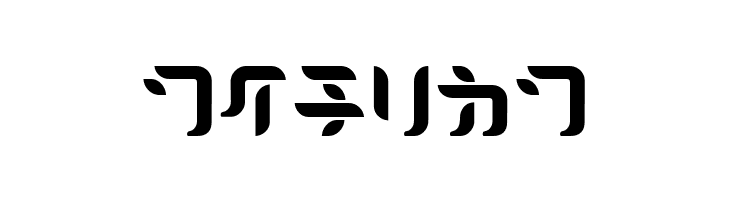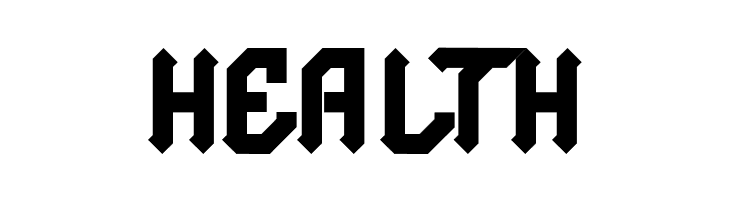
Ninja Naruto Font
A bold, brush-style font with a dynamic and hand-drawn appearance.
Ultras Liberi Font
A bold, angular font with a modern and geometric design.
Darkstar Font
A bold, angular font with a futuristic and edgy design.
Venus Rising Font
A futuristic, geometric font with clean lines and angular shapes.
Willamette Rising Font
A bold, decorative font with integrated silhouette designs in each character.
FakeReceipt Font
A dot matrix-inspired font with characters formed by small, evenly spaced dots.
VenusRisingRg-Regular Font
A modern, geometric font with a futuristic and sleek design.
Phoenix Rising Font
A bold, decorative font with a striped pattern and three-dimensional outline.
Riscada Doodle Font
A playful, hand-drawn font with a sketch-like, whimsical appearance.
Spider Web Block Normal Font
A bold, geometric font with a spider web-like design, ideal for decorative use.
Rise of Kingdom Font
A classic serif font with elegant curves and sharp serifs, exuding sophistication.
Risque Font
A bold, playful font with exaggerated serifs and a whimsical style.
Ristella PERSONAL USE ONLY Font
A modern, elegant script font with decorative swashes and smooth curves.
RiotSquad Font
A bold, high-contrast serif font with modern and classic elements.
Riscada Doodle Font
A playful, hand-drawn font with a doodle-like, energetic style.
Bright Sunday Font
A playful, bold font with rounded edges and a bubbly appearance.
Risque-Regular Font
A playful and whimsical font with exaggerated curves and sharp edges.
Risalah Cinta Font
A bold, flowing script font with elegant curves and artistic flourishes.
Oasis Rising Font
A bold, handwritten font with rounded strokes and a playful, dynamic style.
14 LED Rised Black Font